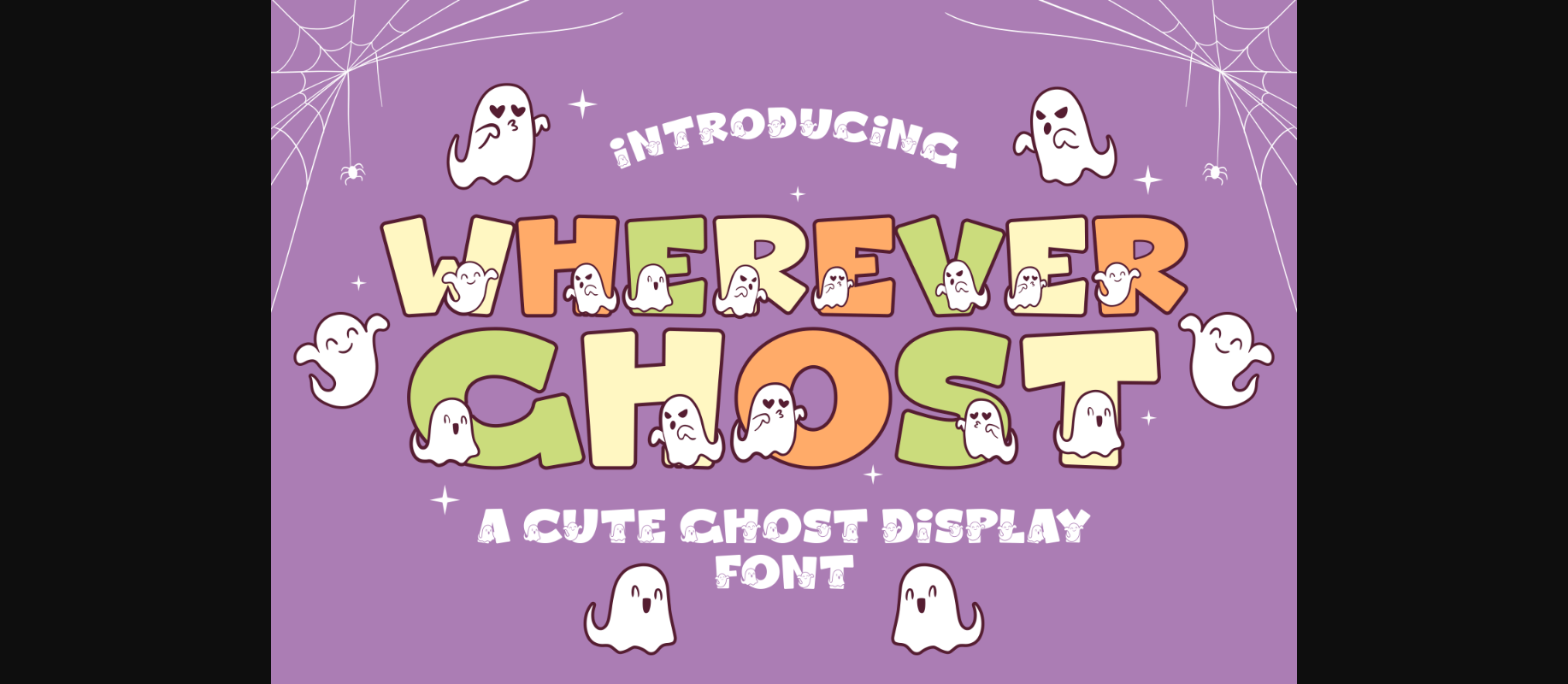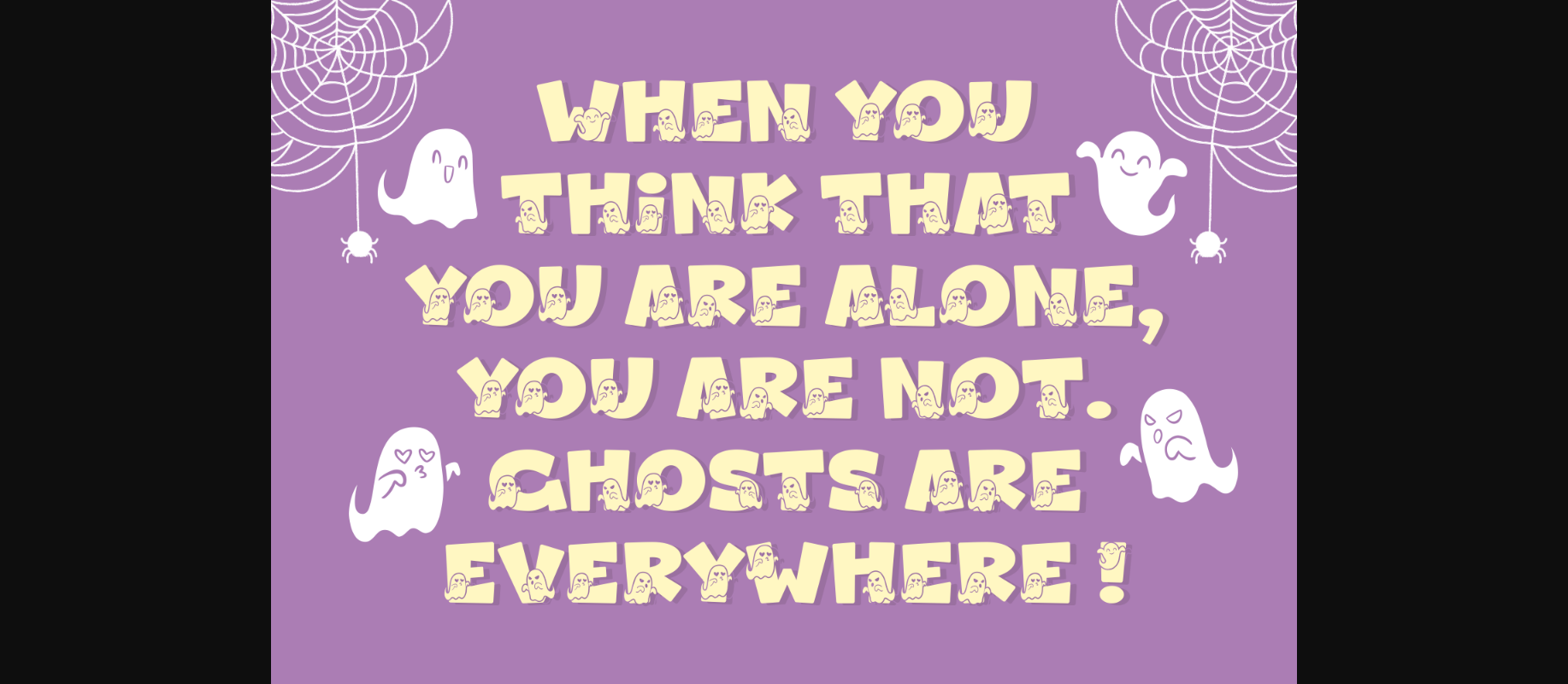
About Wherever Ghost Font
Wherever Ghost is a cute, adorable but still a little bit spooky decorative font. Ideal for your October designs, this font will become your favorite choice in no time!